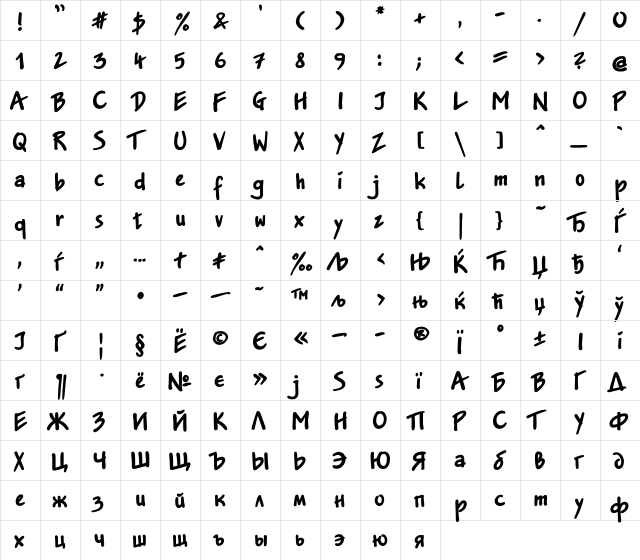
JakobExtraC Regular
Design Context for JakobExtraC Typeface
JakobExtraC is a composed and adaptable typeface that performs quietly and consistently across a wide range of design contexts.